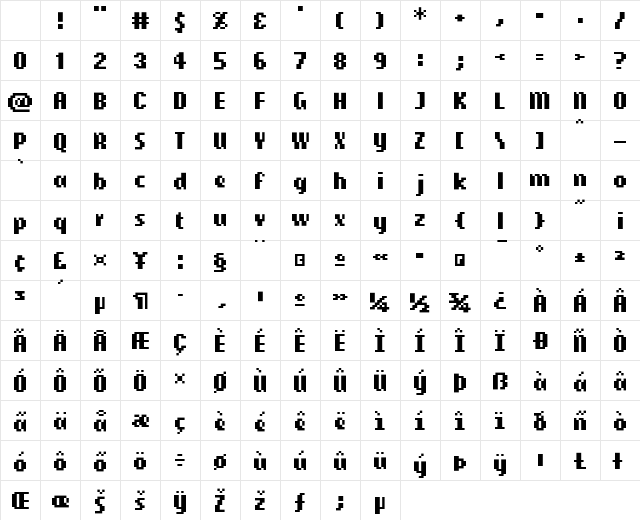
Complete CellularTall Bold glyph index. Displaying only characters natively supported by CellularTall Bold font.
CellularTall is a composed and adaptable typeface that performs quietly and consistently across a wide range of design contexts. Its bold stroke weight gives it real presence on the page.